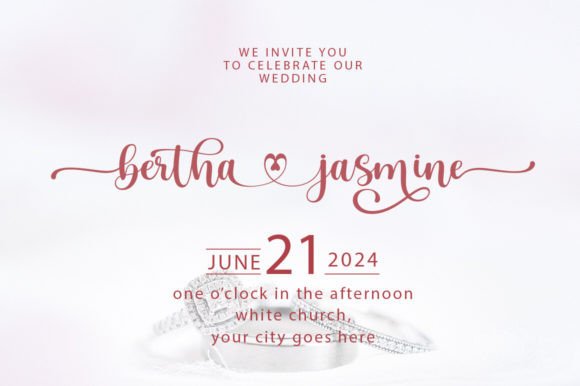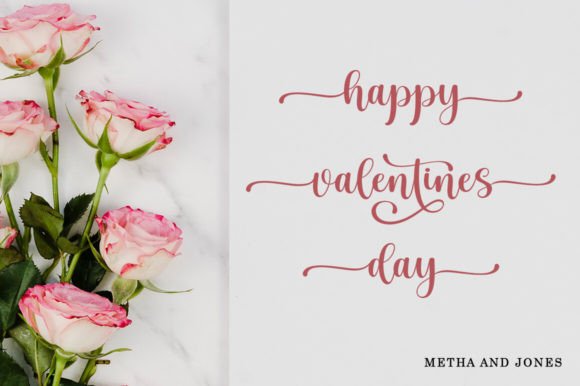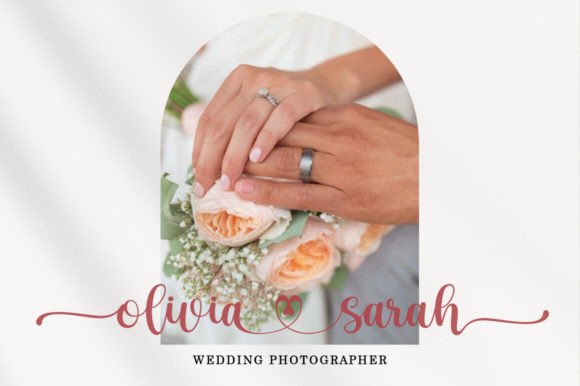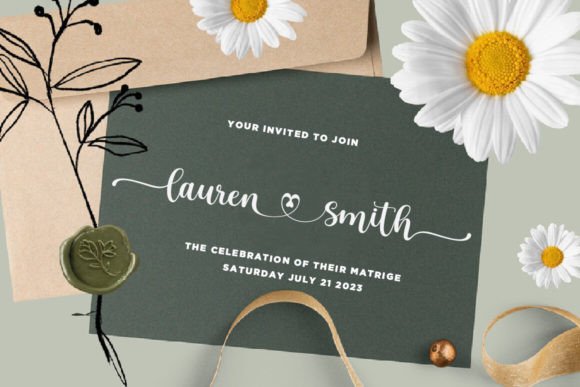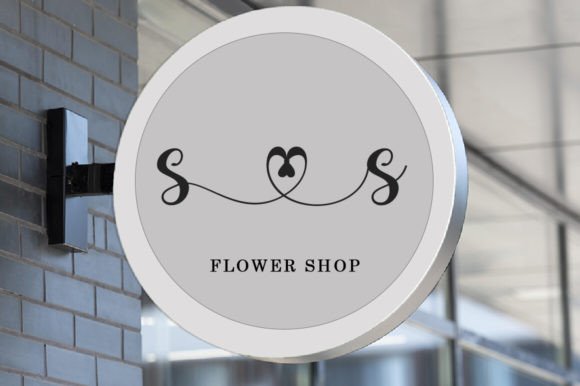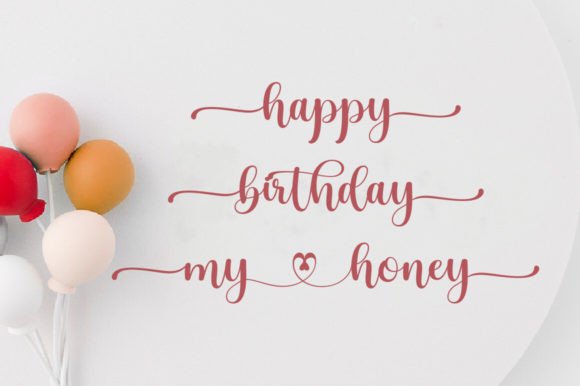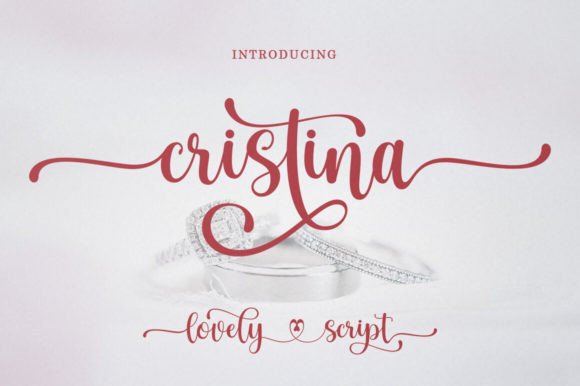
Cristina Font: Elevate Your Designs with Elegance and Versatility
In the world of typography, a font can make all the difference in the success of a design project. For designers and crafters seeking a script font that exudes elegance, sophistication, and versatility, Cristina Font is an exceptional choice. This beautiful script font boasts numerous alternative styles, making it perfect for a wide range of extraordinary projects. In this article, we’ll explore the features and applications of Cristina Font, and why it’s an ideal selection for various design needs.
What Makes Cristina Font Stand Out?
Cristina Font is distinguished by its natural, elegant appearance, which lends itself well to a variety of design applications. Its script style is both classic and contemporary, making it suitable for projects that require a touch of sophistication. The font’s versatility is further enhanced by its many alternative styles, allowing designers to experiment with different looks and tones to find the perfect fit for their project.
Key Features of Cristina Font
- Elegant Script Style: Cristina Font features a beautiful, flowing script style that adds a touch of elegance to any design.
- Multiple Alternative Styles: With many alternative styles to choose from, designers can select the perfect variation to match their project’s tone and aesthetic.
- Natural Appearance: The font’s natural appearance makes it suitable for a wide range of applications, from formal invitations to product packaging.
- High Versatility: Cristina Font can be used for various design projects, including invitations, product design, labels, photography, watermarks, logos, and branding.
Applications of Cristina Font
Cristina Font’s versatility makes it an excellent choice for a variety of design projects. Here are some of the ways designers and crafters can utilize this beautiful script font:
Invitations and Stationery
Cristina Font is perfect for creating elegant invitations, wedding cards, and other stationery items. Its classic script style adds a touch of sophistication and romance, making it ideal for special occasions.
Product Packaging and Design
For crafters and product designers, Cristina Font offers a stylish solution for labeling products, creating packaging designs, and developing brand identities. The font’s natural appearance and elegance make it suitable for a wide range of products, from handmade crafts to luxury goods.
Photography and Watermarks
Photographers can use Cristina Font to add a touch of elegance to their watermarks, making it easier to protect their images while maintaining a professional appearance.
Logos and Branding
Cristina Font’s versatility and sophistication make it an excellent choice for logos and branding projects. Its script style can add a touch of personality and elegance to a brand’s identity, helping to establish a strong visual presence.
| Author | Romie Creative |
Cristina Font is a beautiful script font that offers elegance, versatility, and sophistication for a wide range of design projects. Its natural appearance, multiple alternative styles, and high versatility make it an excellent choice for designers and crafters seeking a stylish and professional font. Whether you’re creating invitations, product packaging, logos, or watermarks, Cristina Font is sure to elevate your designs and help you achieve your creative vision.